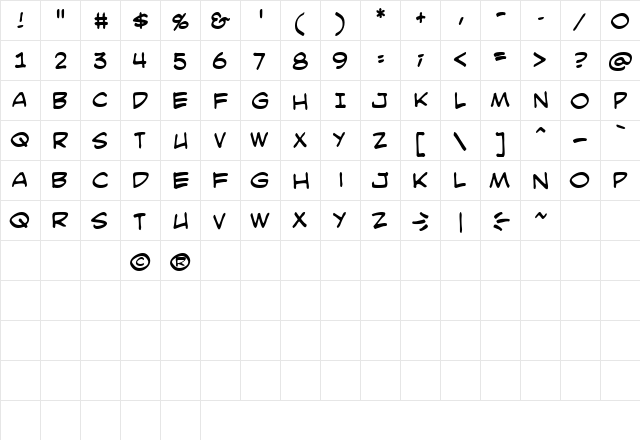
SmackAttack BB Regular
| Foundry | Nate Piekos. Blambot.com |
| Designer | Nate Piekos |
Design Context for SmackAttack BB Typeface
SmackAttack BB is a composed and adaptable typeface that performs quietly and consistently across a wide range of design contexts.